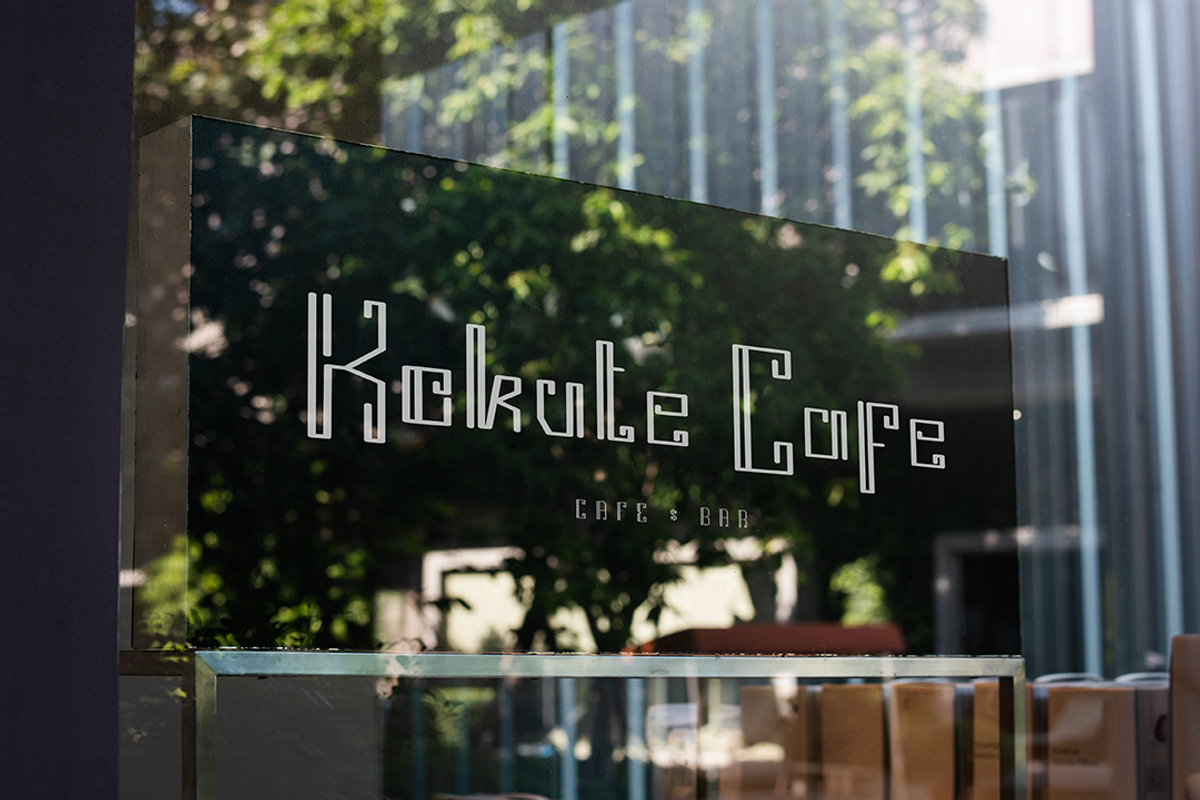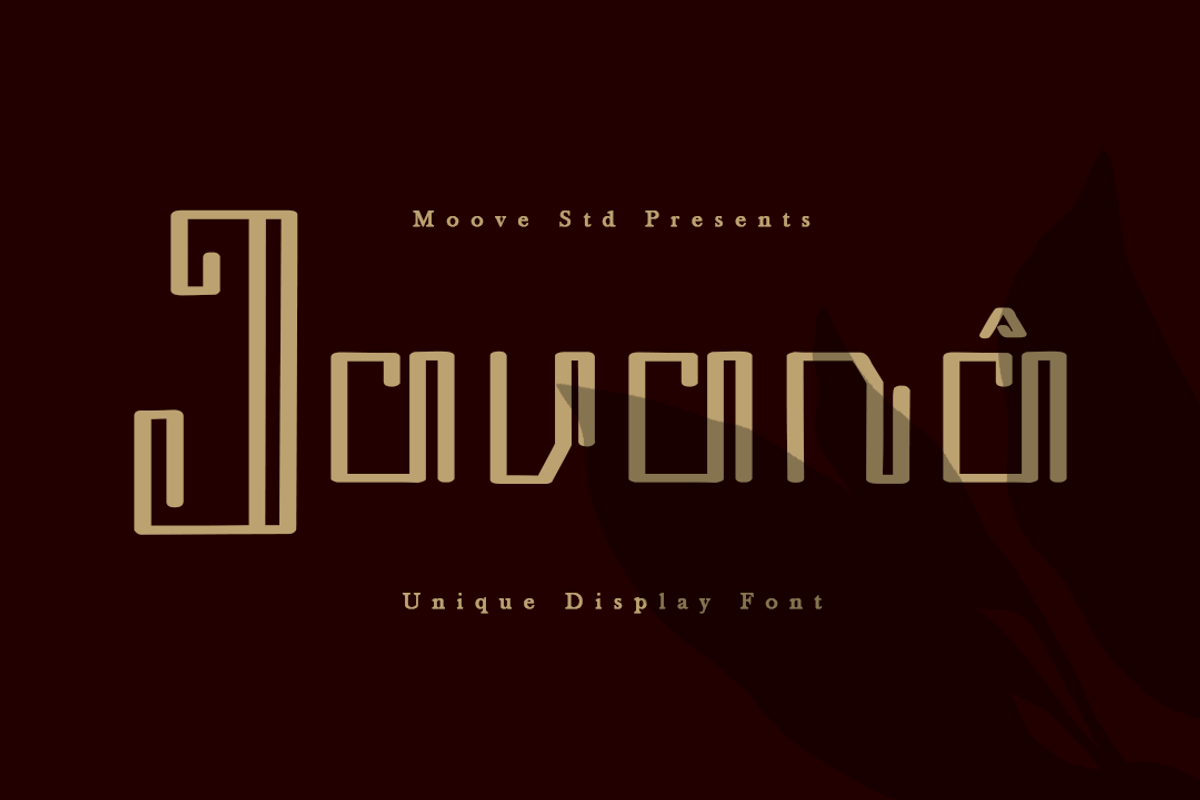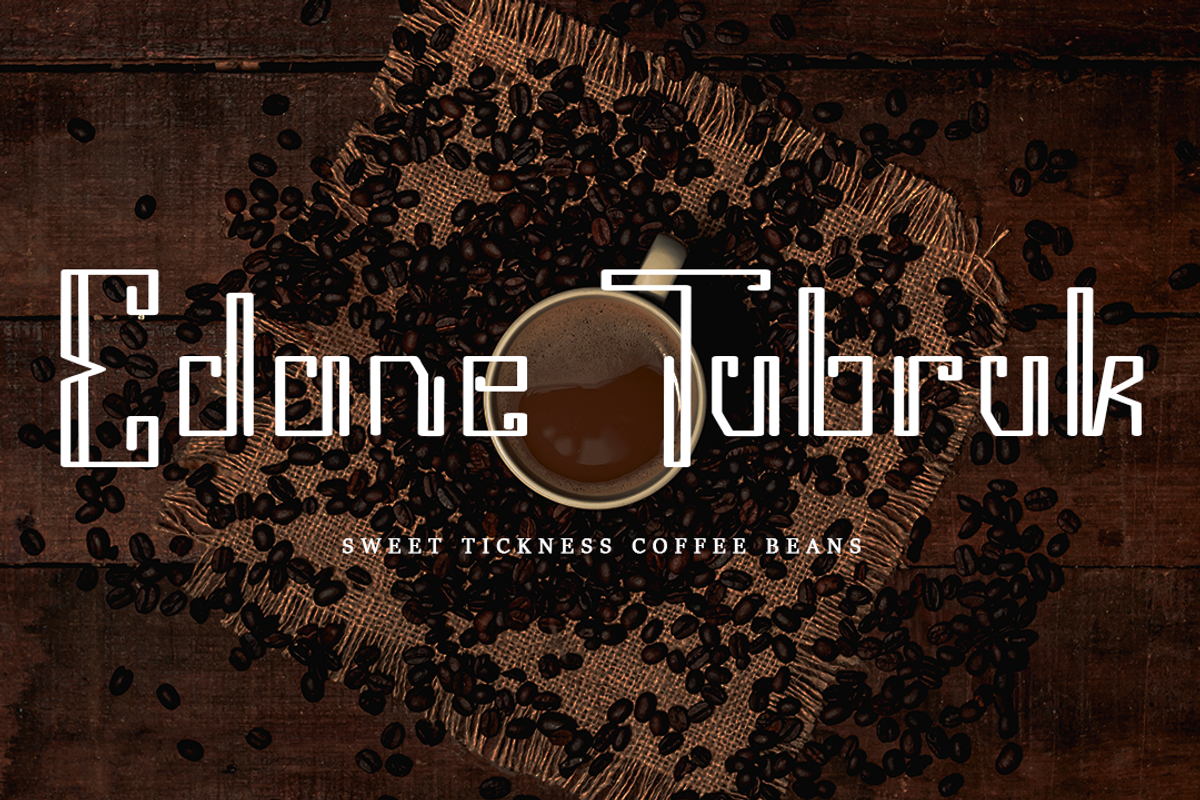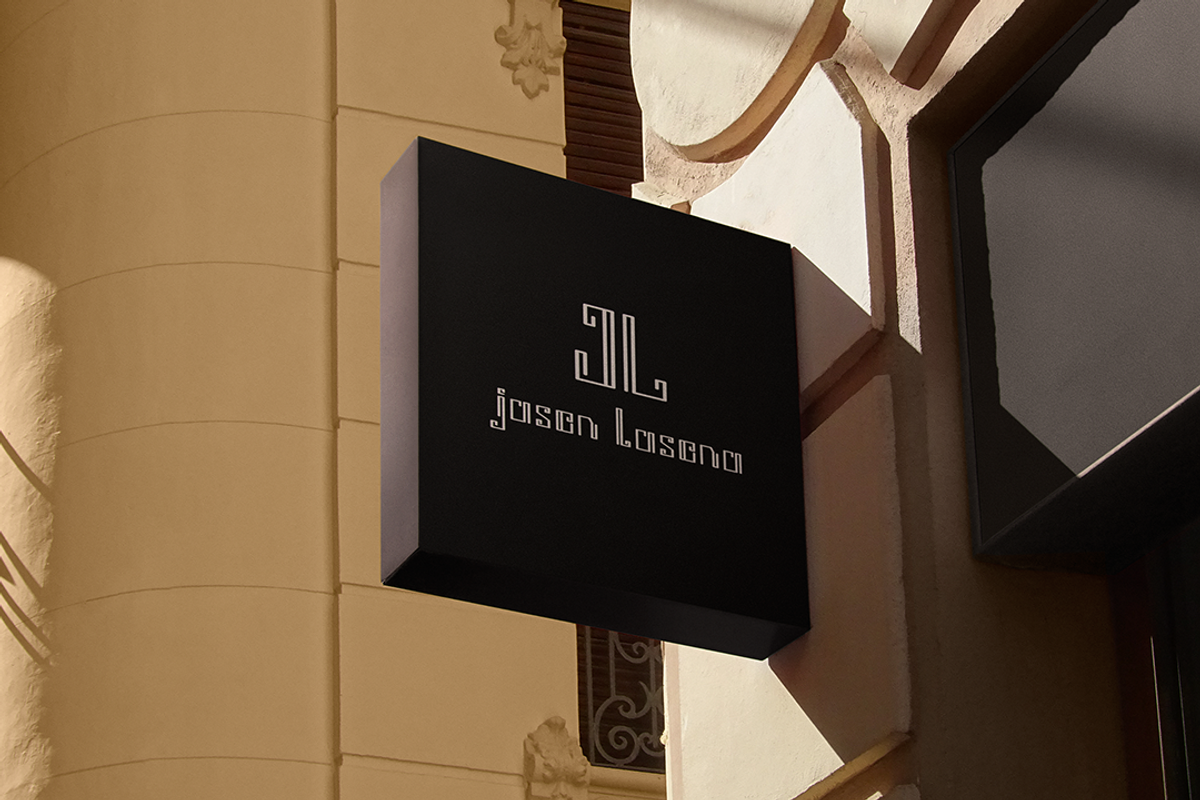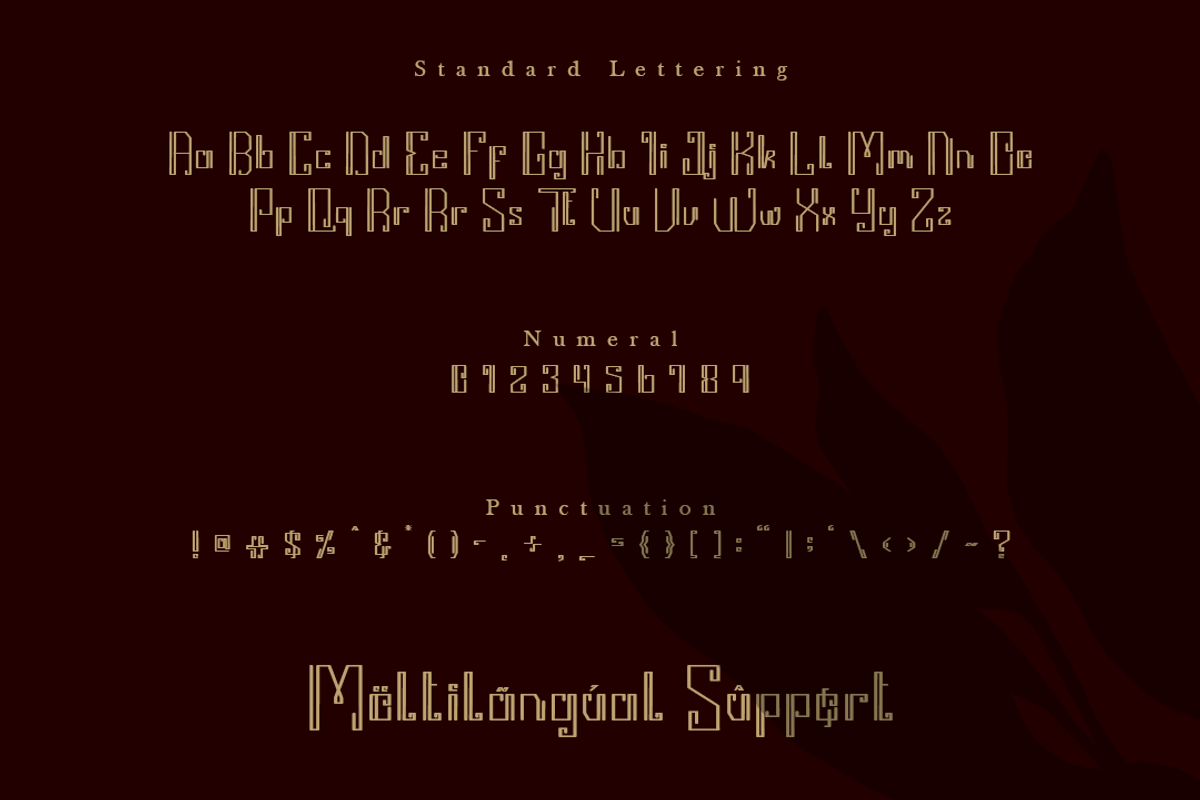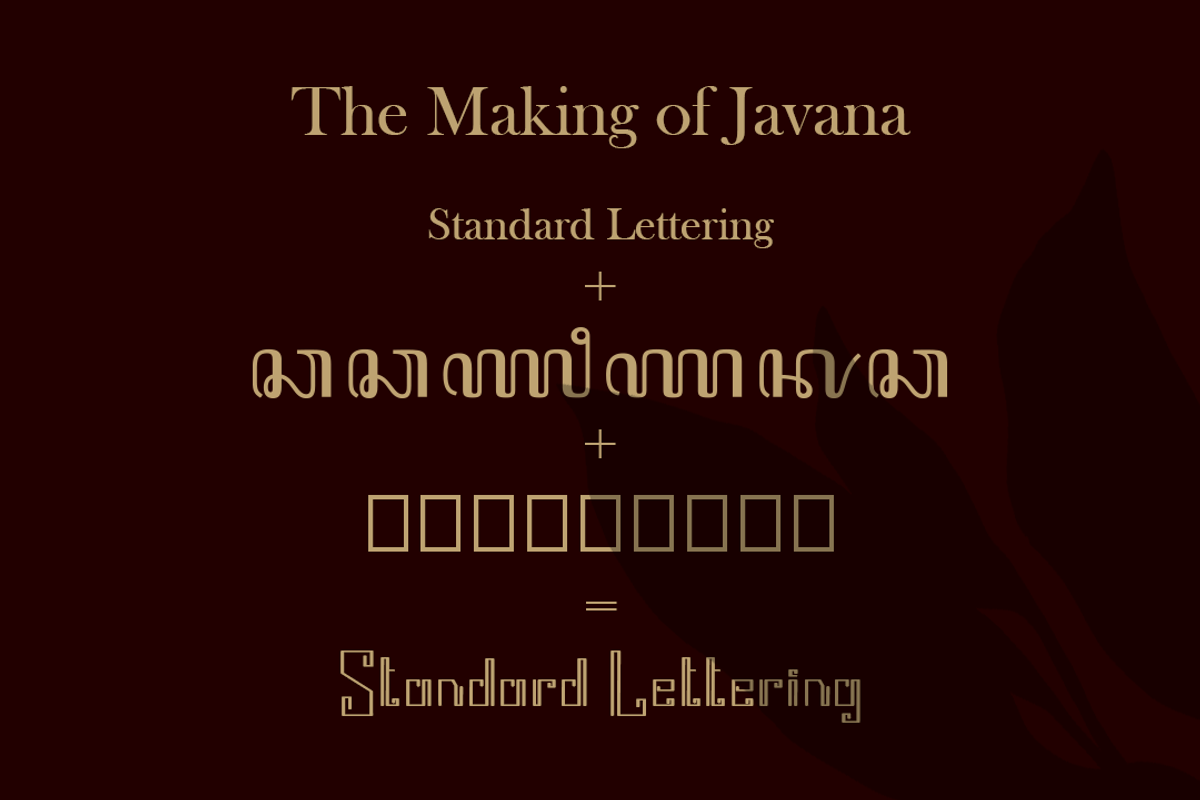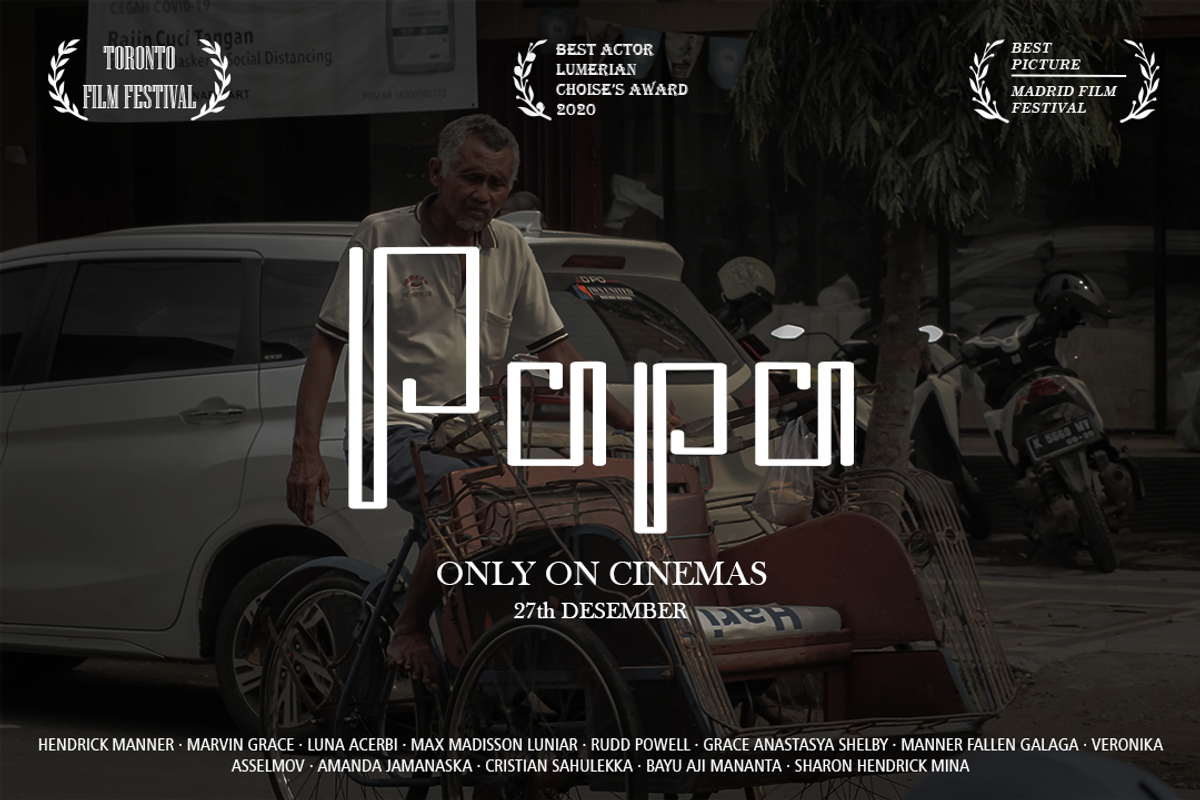
Javana | Unique Display Font
Hi! Introducing my newest font called Javana.
Javana is a genuine and interesting display font, featuring the perfect amount of trendiness. Whether you’re using it for crafting, digital designing, presentations or greeting cards making, it’s perfect!